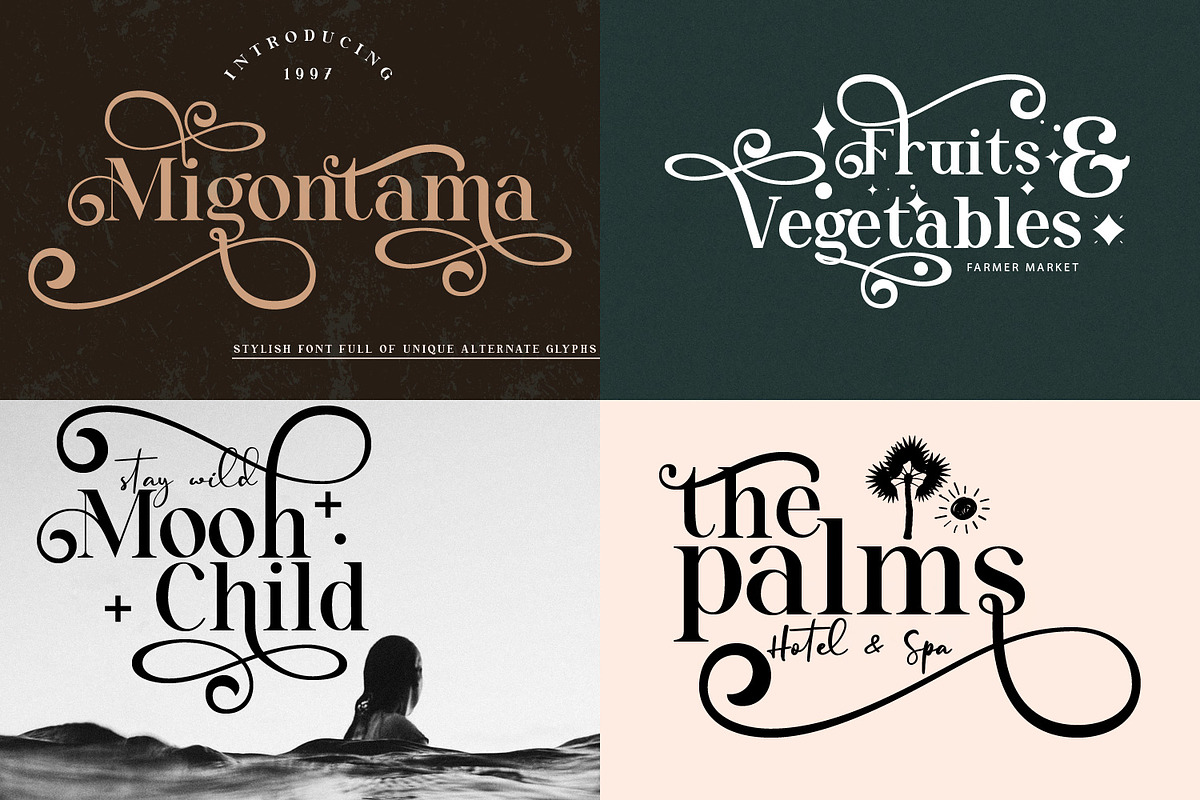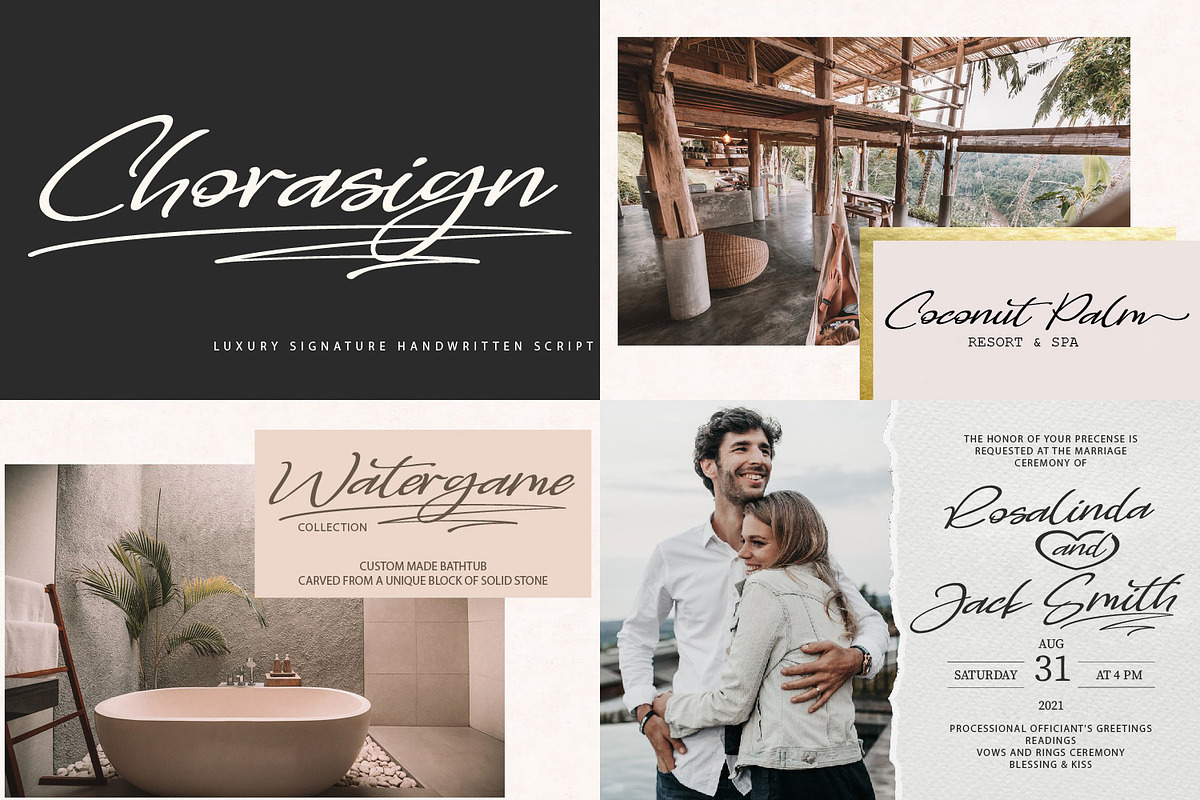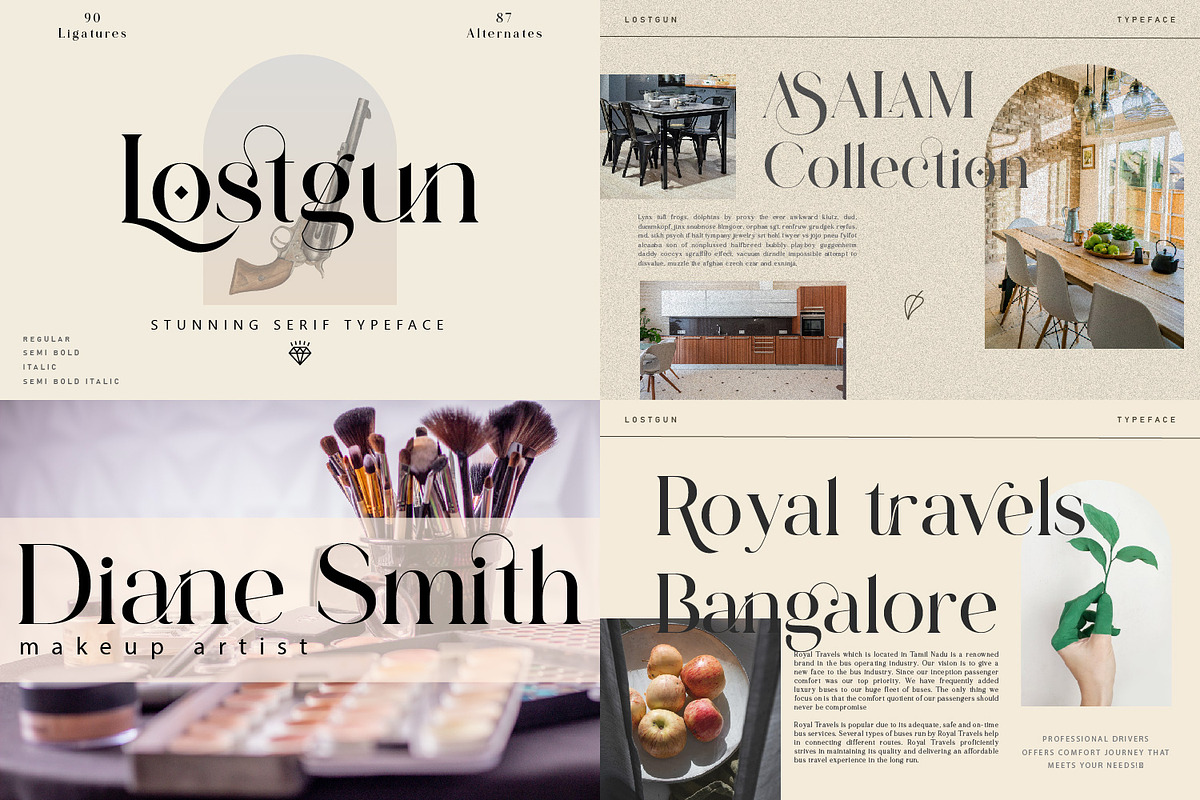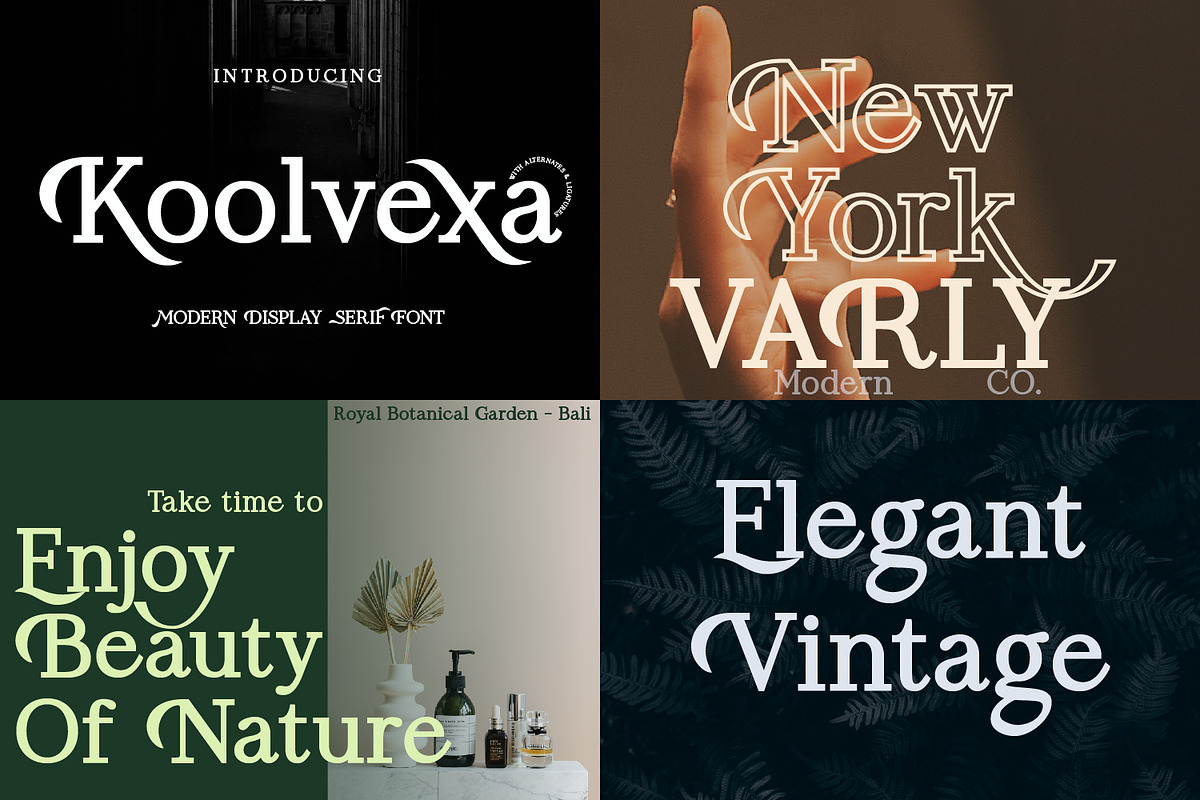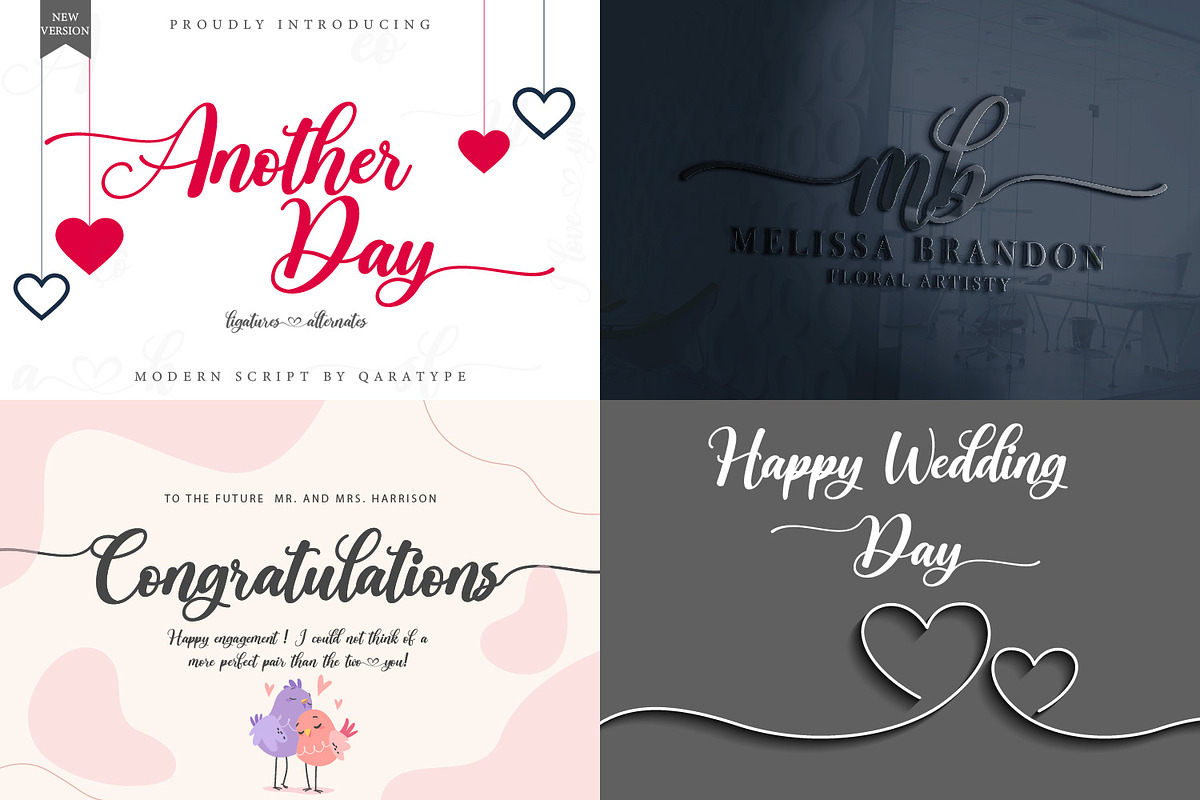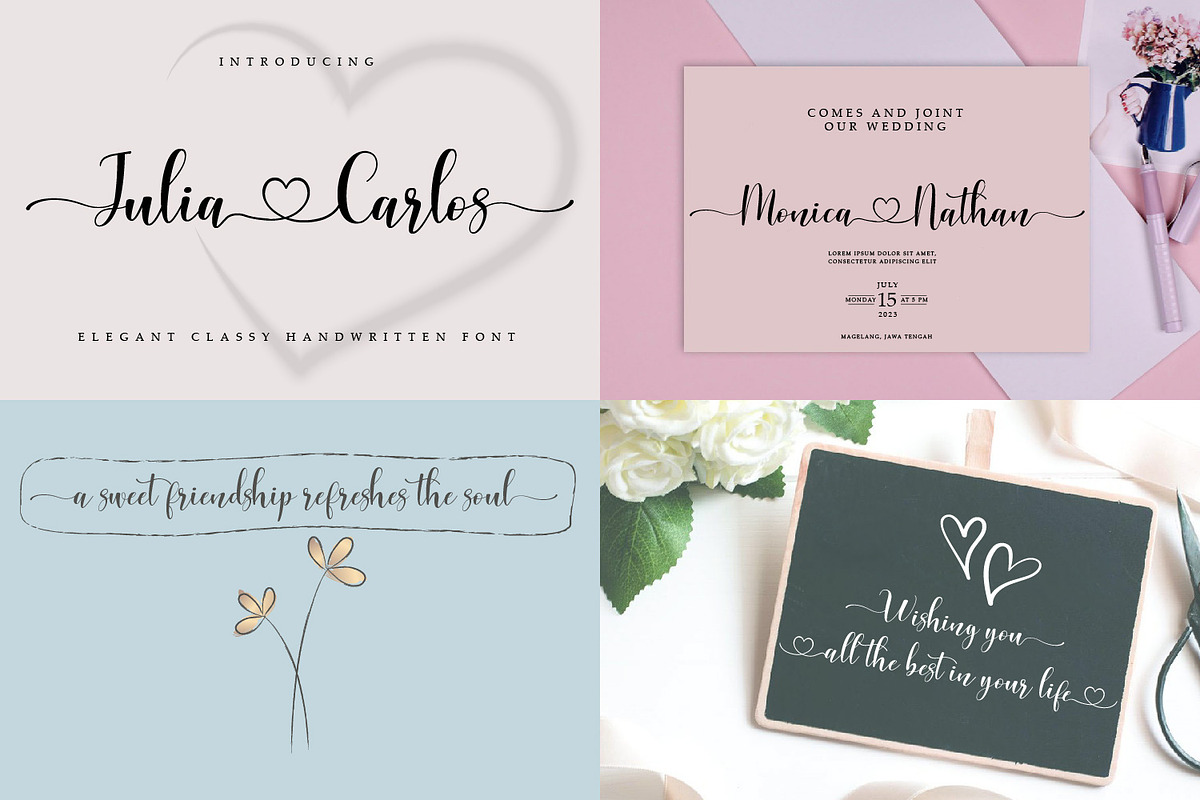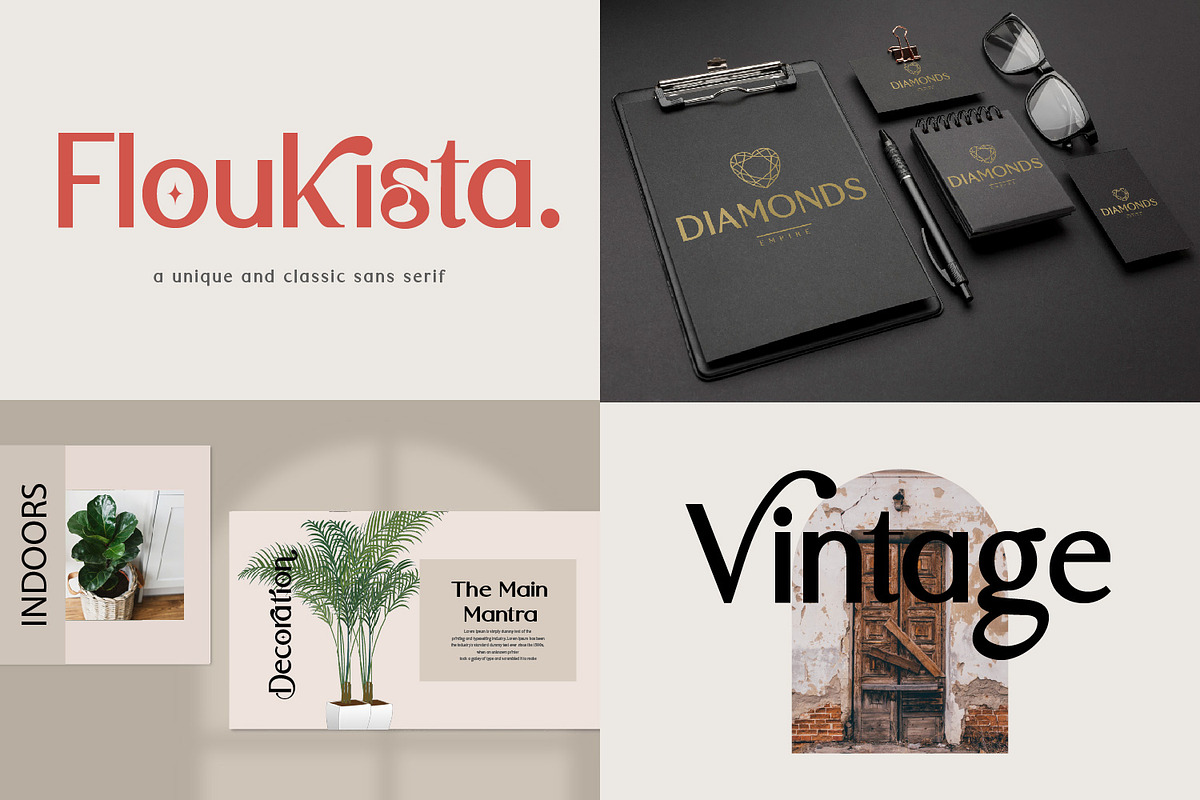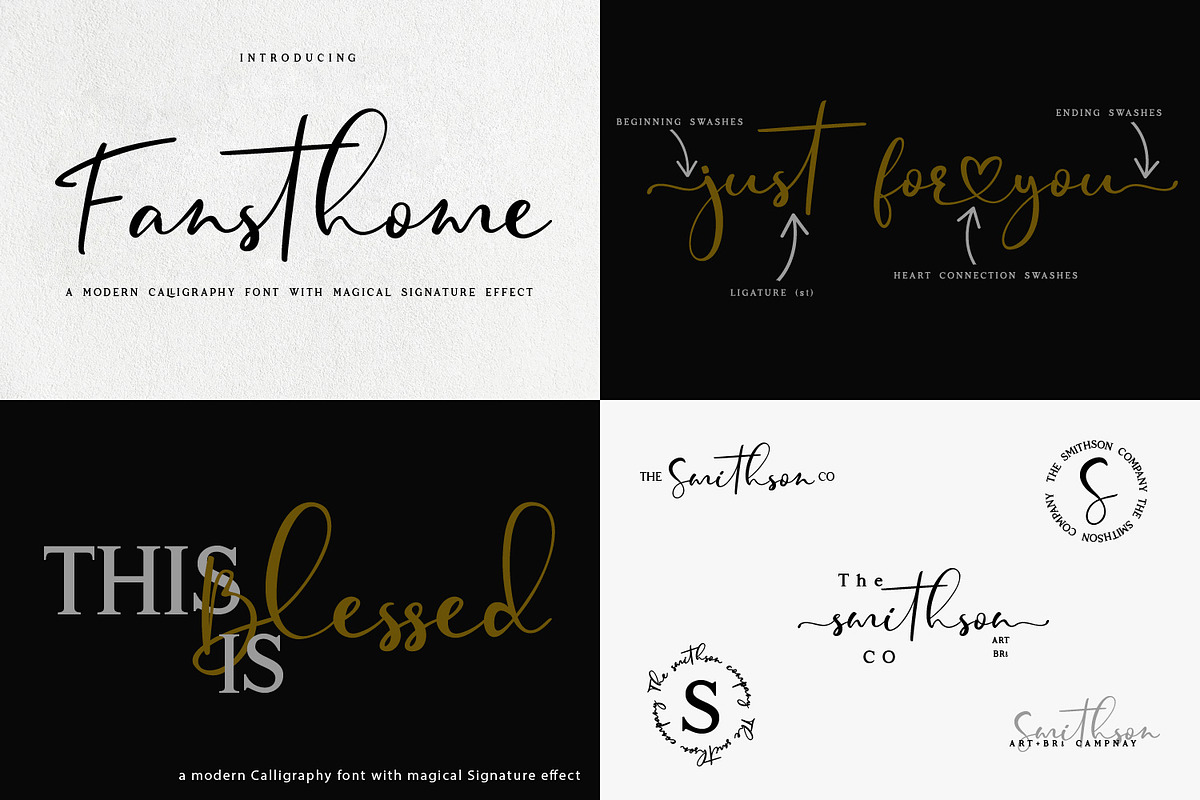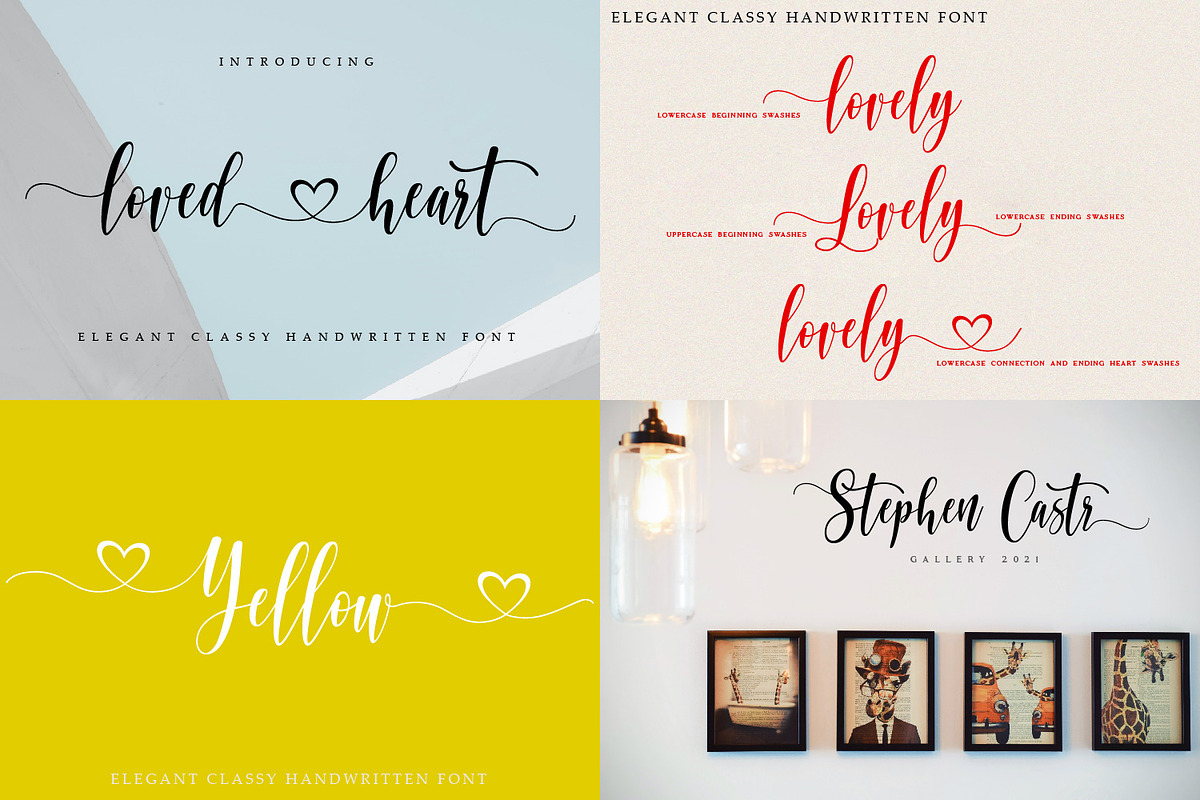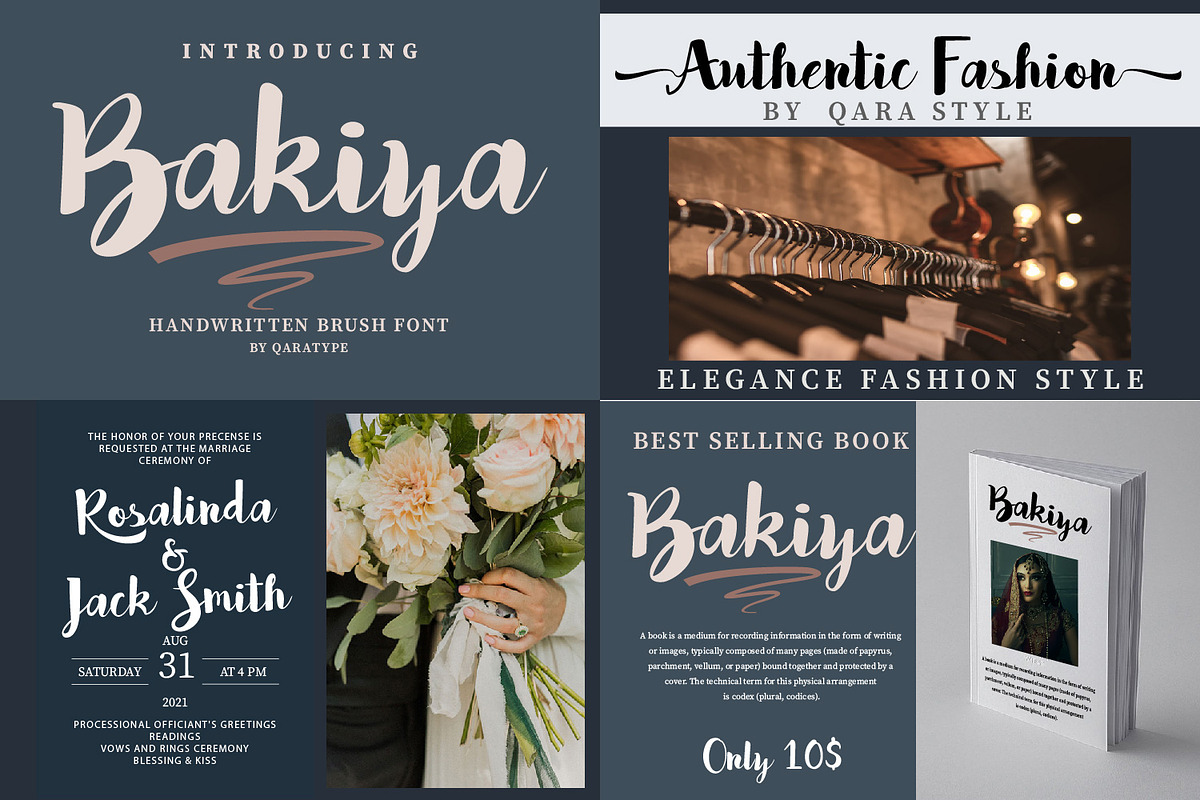
The 2021 Elegant BUNDLE-12 Typefaces
- Lostgun: https://creativemarket.com/qaratype/6802046-Lostgun-Stunning-Serif-Typeface
- Migontama : https://creativemarket.com/qaratype/6702080-Migontama-Stylish-Serif-Font
- Fansthome: https://creativemarket.com/qaratype/6704614-Fansthome-Magical-Signature-Effect
- Floukista: https://creativemarket.com/qaratype/6714881-Floukista-Classic-and-Unique-Sans
- Sofimaria: https://creativemarket.com/qaratype/6721506-Sofimaria-Elegant-Modern-Serif
- Koolvexa: https://creativemarket.com/qaratype/6722330-Koolvexa-A-Modern-Slab-Serif
- Chorasign: https://creativemarket.com/qaratype/6724866-Chorasign-Handwritten-Script
- Loved Heart: https://creativemarket.com/qaratype/6741086-Loved-Heart-Beautiful-Script
- Bakiya: -
- Julia Carlos: -
- Another Day V2: https://creativemarket.com/qaratype/6729803-Another-Day-Modern-Script
- Riwaya: https://creativemarket.com/qaratype/6780479-Riwaya-A-Handwritten-Font